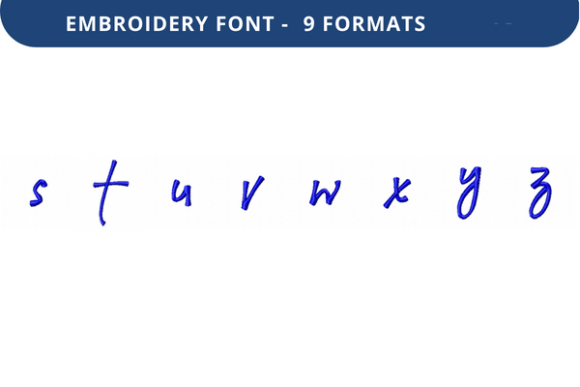
Victorina Font Lowercase S to Z
Victorina Font Lowercase S to Z is a versatile and elegant typeface that brings a touch of classic charm to modern design. This font is designed for those who appreciate the beauty of handcrafted typography, offering a unique blend of sophistication and warmth. Its lowercase letters are carefully crafted to maintain readability while adding a personal and artistic flair to any project.
A Visual Identity with Character
The Victorina Font Lowercase S to Z stands out with its distinctive script style, making it ideal for creative and branding projects. The font features flowing curves and subtle flourishes that give it a handwritten feel without sacrificing legibility. Each letter is thoughtfully designed to work harmoniously with others, ensuring a cohesive look across different applications.
This font is particularly well-suited for logos, social media graphics, and packaging design. Its visual personality is both refined and approachable, allowing it to fit seamlessly into a wide range of creative contexts. Whether you're designing a brand identity or creating personalized gifts, Victorina Font Lowercase S to Z adds a level of elegance that elevates your work.
Enhancing Readability and Brand Perception
While Victorina Font Lowercase S to Z is primarily a display font, it also offers practical benefits for readability when used appropriately. Its clear letterforms and balanced spacing make it suitable for both short and longer text blocks, depending on the context. When paired with complementary fonts, it can help create a strong visual hierarchy that guides the reader’s attention effectively.
From a brand perspective, this font contributes to a sense of professionalism and creativity. Its use can reinforce a brand’s identity as stylish, trustworthy, and visually engaging. Consistency in font usage across all design assets helps build recognition and strengthens audience engagement over time.
Choosing the Right Font for Your Project
Selecting the right font involves considering several factors, including the purpose of the design, the target audience, and the overall aesthetic you want to convey. Victorina Font Lowercase S to Z is best suited for projects that require a touch of elegance and individuality.
To evaluate whether this font fits your needs, consider how it interacts with other design elements. Test it in different formats and sizes to ensure it maintains its visual integrity. Pay attention to spacing, contrast, and alignment to achieve the best results.
Practical Tips for Using Victorina Font Lowercase S to Z
Font Pairing and Design Assets
Victorina Font Lowercase S to Z pairs beautifully with clean, modern sans serif fonts for a balanced and professional look. This combination works well in editorial design, where clarity and style must coexist. For a more decorative effect, consider pairing it with a bold serif font to create contrast and visual interest.
As a premium font, Victorina Font Lowercase S to Z is a valuable asset for designers looking to enhance their creative toolkit. Its inclusion in commercial projects not only adds value but also supports the long-term growth of your brand identity.
Conclusion
Victorina Font Lowercase S to Z is more than just a typeface—it's a tool for storytelling, brand building, and creative expression. Its unique style and versatility make it an excellent choice for a wide range of design applications. Whether you're working on a personal project or a commercial venture, this font offers the flexibility and elegance needed to elevate your work.